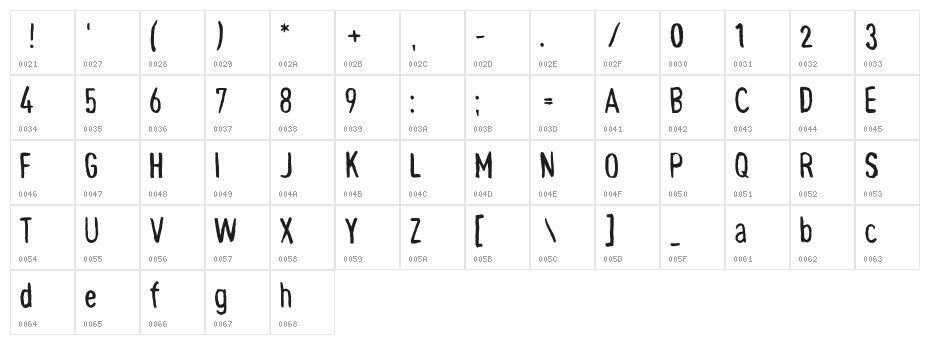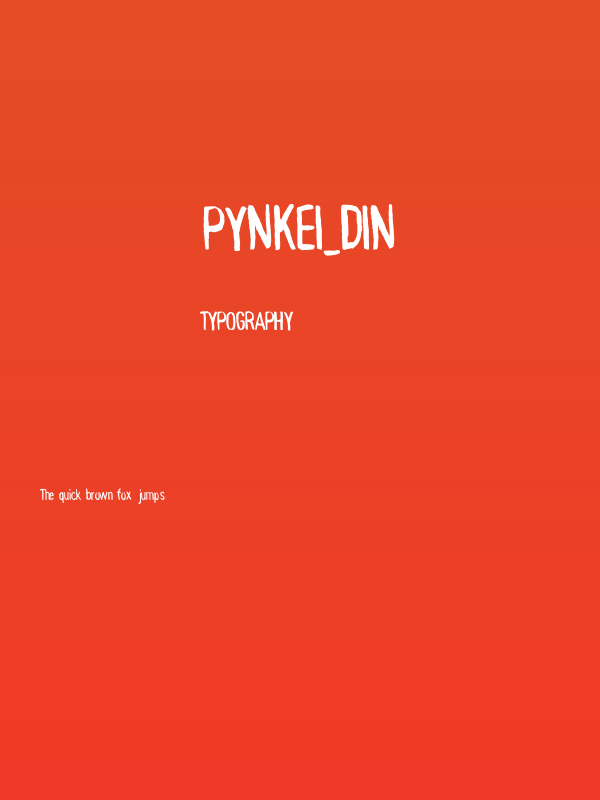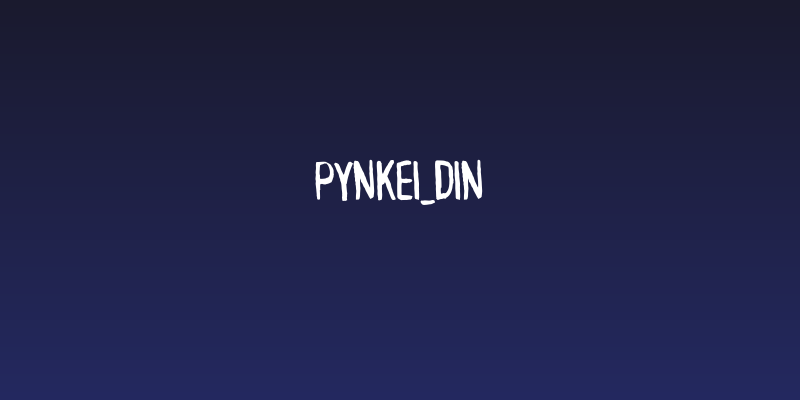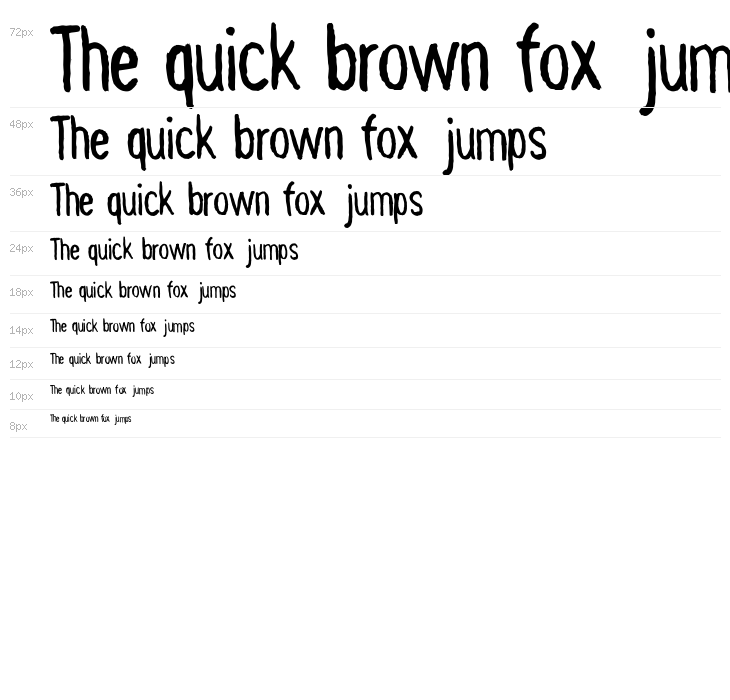
Pynkei_DIN Font
Pynkei_DIN Description
This font exhibits a playful and hand-drawn aesthetic, characterized by its irregular and slightly uneven strokes that give it a casual, informal appearance. The letters are bold and have a somewhat whimsical quality, with varying stroke widths that add to its charm. The uppercase and lowercase letters maintain a consistent style, with rounded edges and a slightly condensed form. The numerals and special characters follow the same playful design, making the font versatile for creative projects. Its unique style makes it stand out, perfect for designs that require a personal touch.
| Proposed Projects | Ideal for children's books, greeting cards, posters, and creative branding projects. |